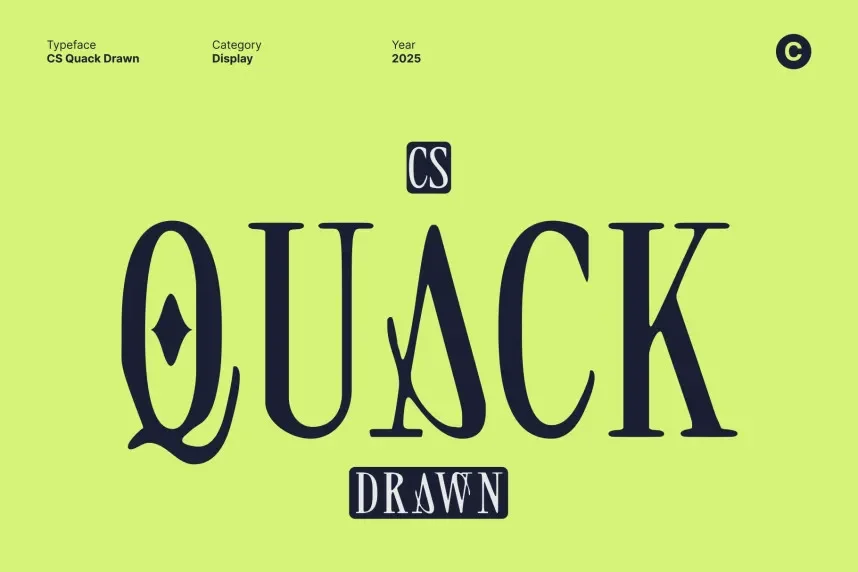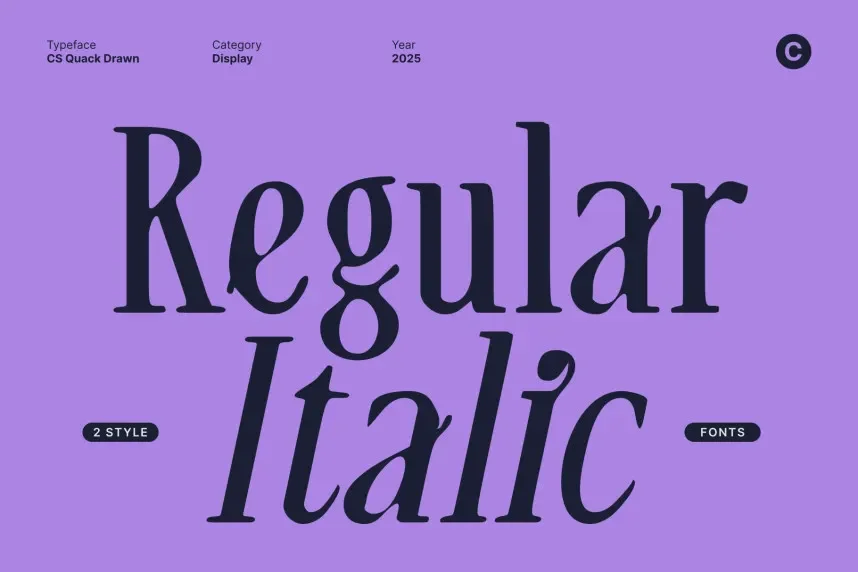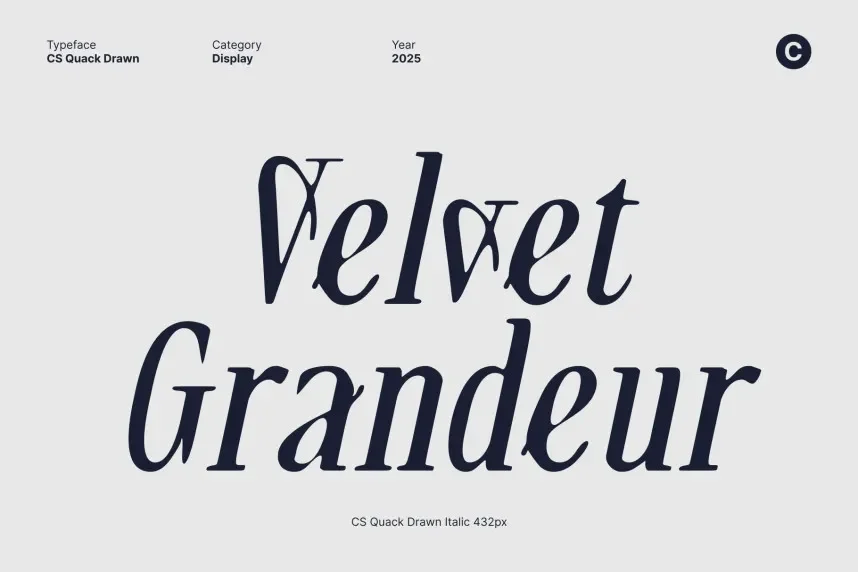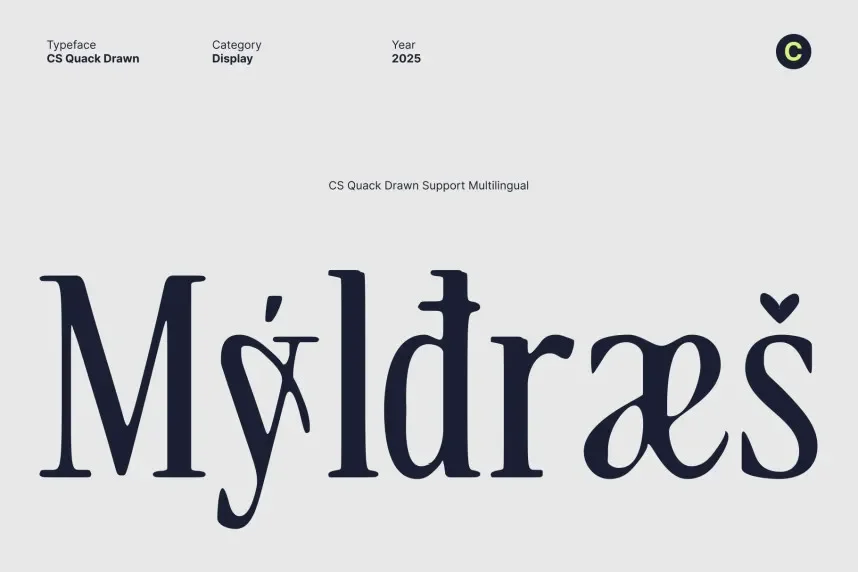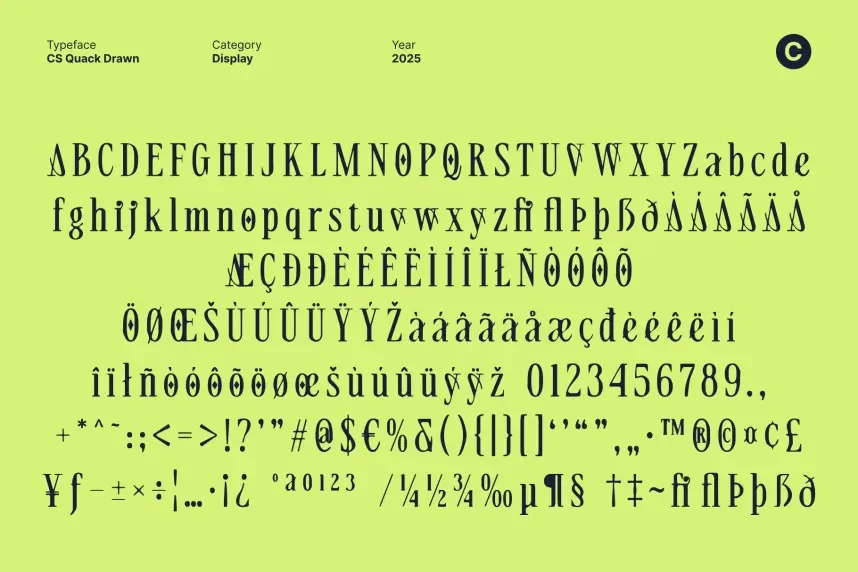
CS Quack Drawn Font is a playful, hand-drawn typeface with a whimsical, informal design. Its rounded edges and quirky letterforms make it ideal for projects that require a lighthearted, fun aesthetic, such as children's branding and creative logos.
Best used for branding, product labels, and promotional materials, CS Quack Drawn Font pairs well with minimalist fonts for contrast. Available in TTF and OTF formats, it includes a commercial-use license. Be sure to check the license for commercial use.